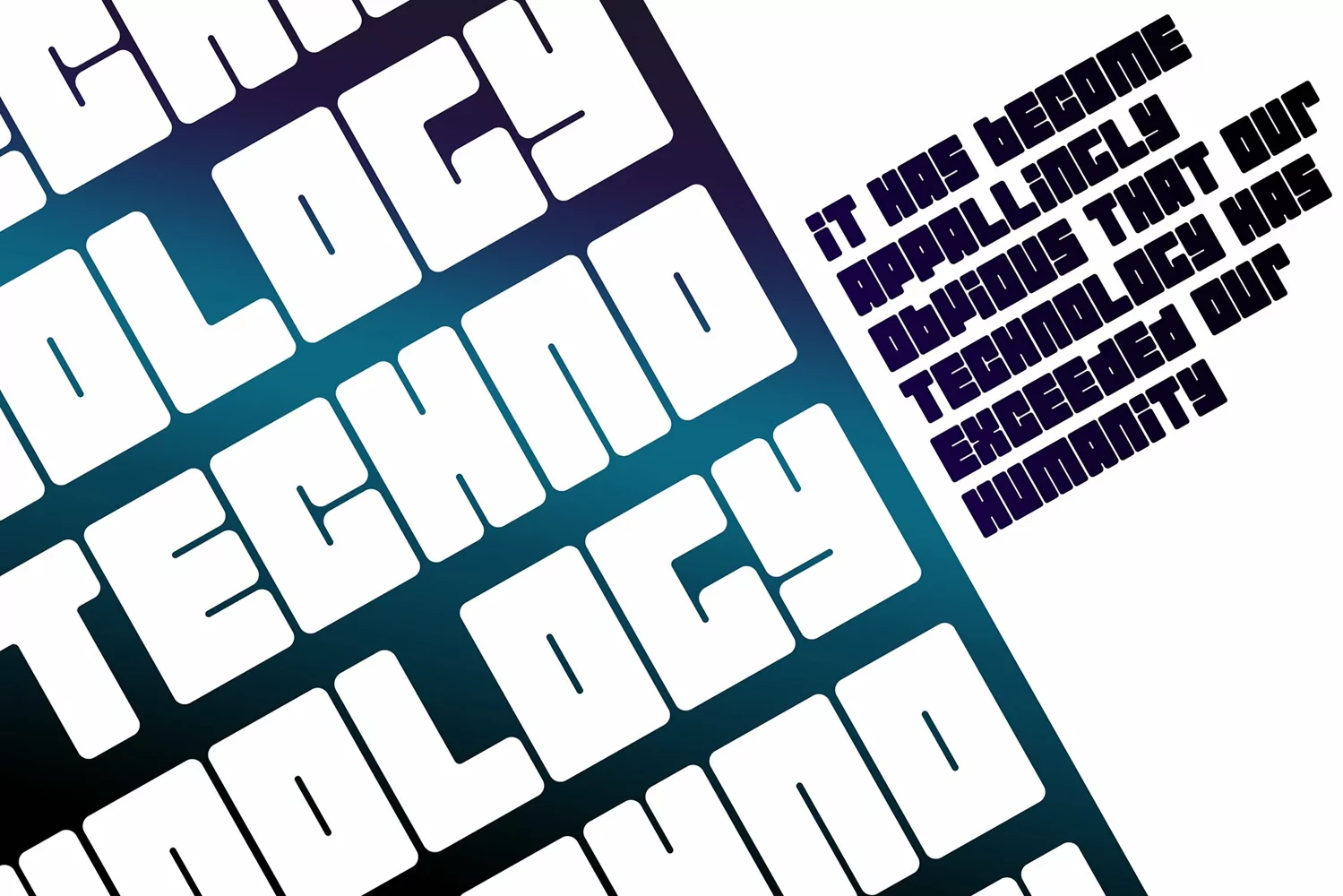
CyberBoy is a minimal bold futuristic, technological looking display font suitable mainly for titling, headings. The font comes in an OTF file format and has been created using Fontself.